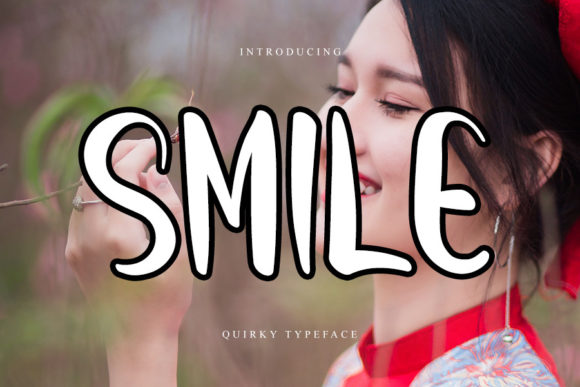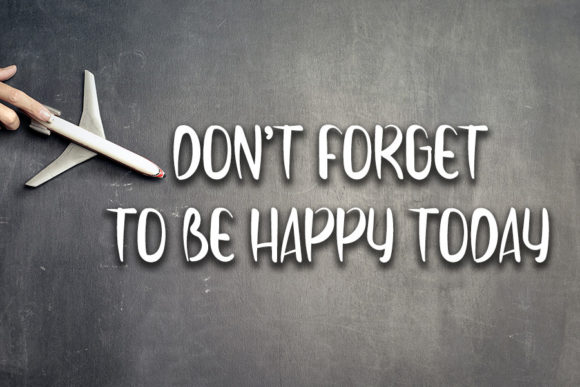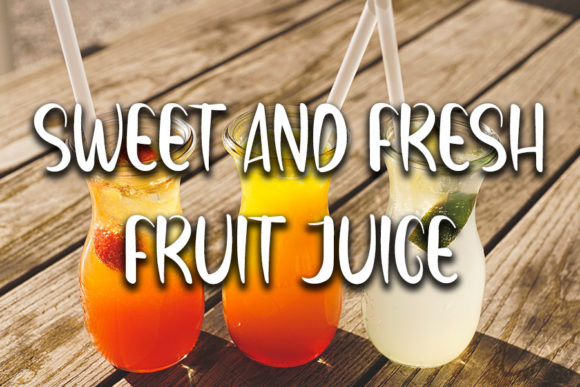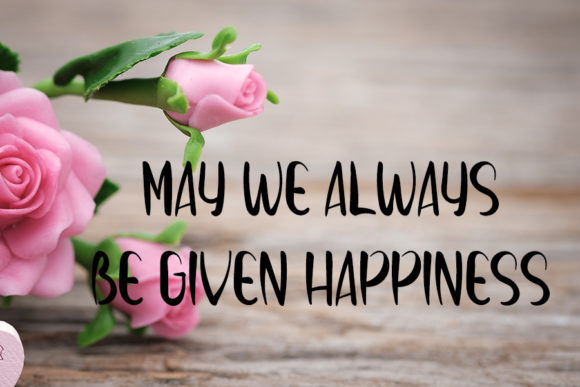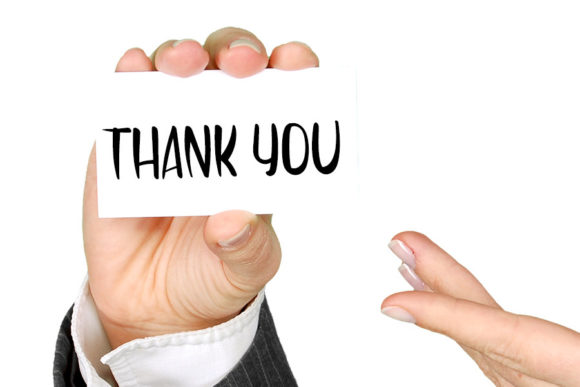
Smile Font
About Smile Font
Smile is a chic handwritten font with an impeccable form, inspired by a timeless calligraphy. Balanced and varied, this font was designed to enhance the beauty of your projects.